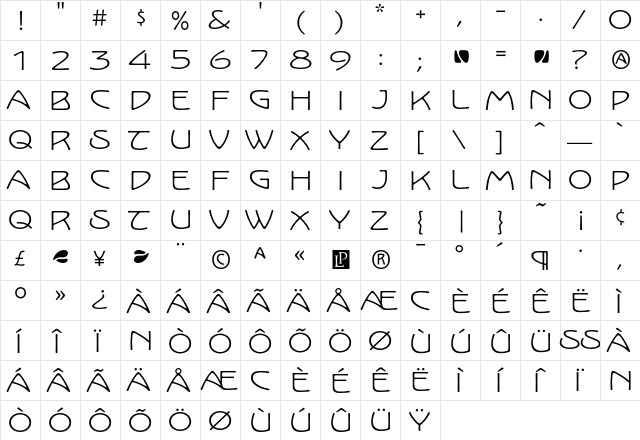
KoloWide Regular
Design Context for KoloWide Typeface
KoloWide is a composed and adaptable typeface that performs quietly and consistently across a wide range of design contexts.